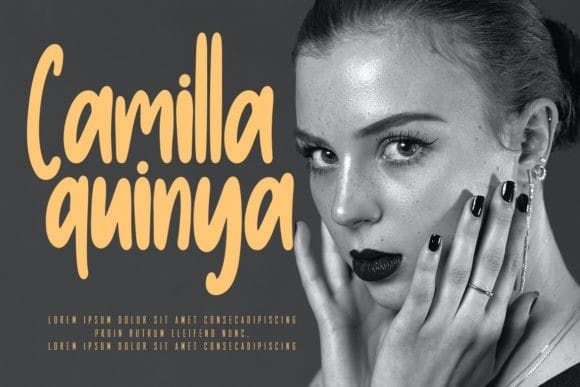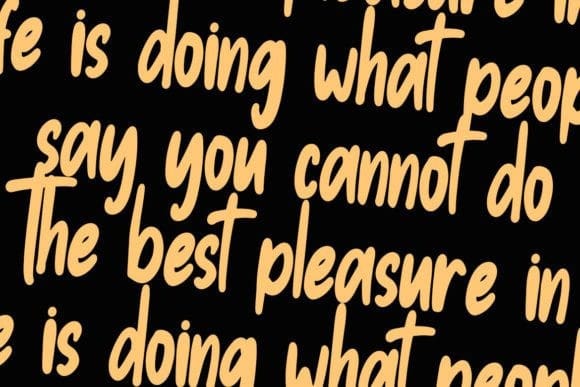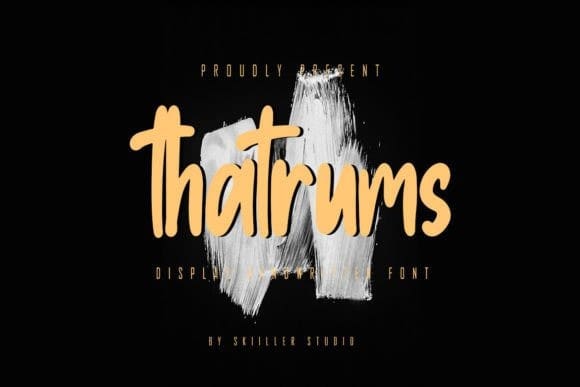
Thatrums Font
Thatrums Font by skiiller studio 9,321 downloads
Thatrums Font
Thatrums Font is a modern paint brushed handwritten font, crafted to give your headlines and logotype projects a stylish touch. This font reads as strong, confident, and dynamic and can add tons of urban character to your designs.